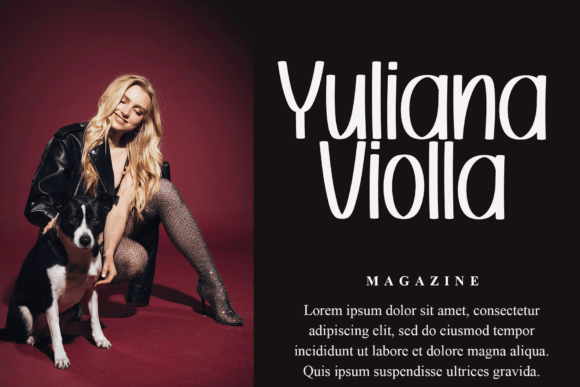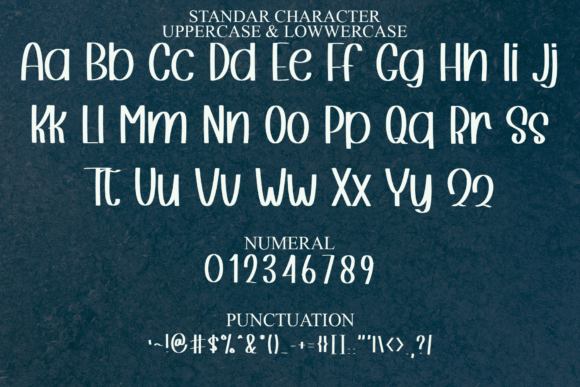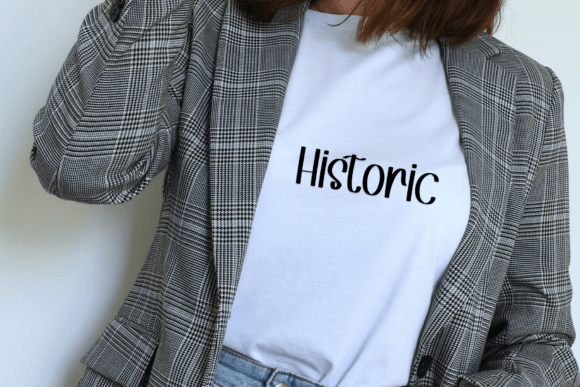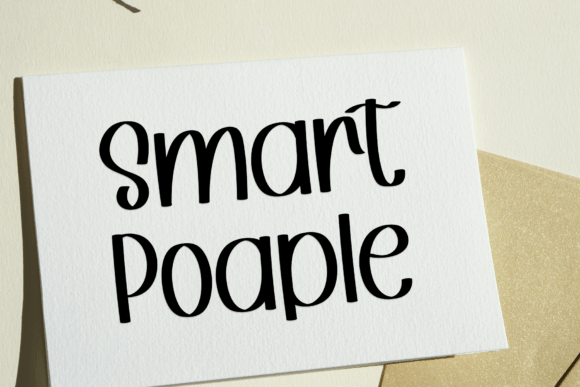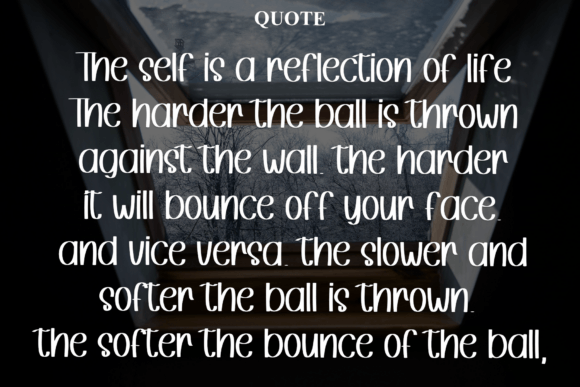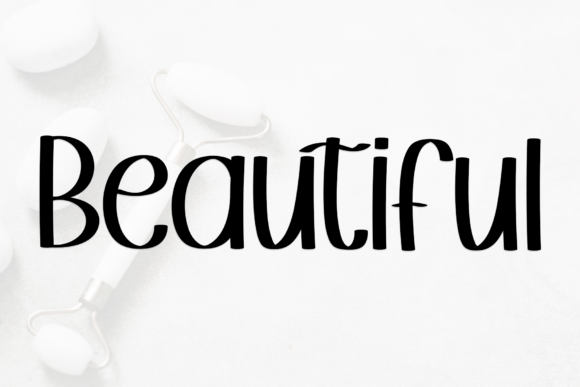
Unleashing Creativity with the Beauty Homestay Font
Have you ever sat in front of a blank canvas, waiting for inspiration to strike? For designers, this moment can be both exhilarating and daunting. But what if you had the perfect tool to spark your creativity and bring your vision to life? Enter the Beauty Homestay Font, a stunning typeface that is sure to elevate your work and leave a lasting impression.
This beautiful font boasts smooth lines and delicate strokes, giving your designs a natural and organic feel. Whether you’re creating banners, YouTube thumbnails, logo designs, or wedding invitation cards, the Beauty Homestay Font is the perfect companion to help you achieve your creative goals. Its versatility and beauty make it an invaluable asset for designers, and we’re excited to share its secrets with you.
Beauty Homestay Font Key Features
- Font Family: Beauty Homestay Font is a unique, elegant font designed specifically for homestay and hospitality businesses.
- Character Set: Supports a wide range of languages, including Latin, Cyrillic, and Greek alphabets, making it suitable for international use.
- Size: The font family includes 6 different font weights, ranging from Light to Bold, providing flexibility for various design needs.
- Unique Characteristics: Features a beautiful, hand-drawn design with subtle flourishes and elegant lines, giving it a touch of sophistication and warmth.
Review of Beauty Homestay Font
Overall, I think Beauty Homestay Font is a decent choice for a clean and minimalist design. ✨ It has a modern aesthetic that could work well for beauty, wellness, or lifestyle brands.
- ✨ Elegant and simple design that is easy to read
- ✨ Open and airy feel that makes text feel less dense
- ✨ Suitable for both digital and print use
- ⚠️ Limited character set and language support
- ⚠️ Not ideal for highly technical or complex content
- ⚠️ May not be suitable for bold or dramatic headlines
While Beauty Homestay Font is a solid choice for certain types of projects, it may not be the best option for everyone. If you’re looking for a clean and modern font for a beauty or wellness brand, it’s worth considering. However, if you need a font that can handle complex content or a wide range of languages, you may want to look elsewhere.
Tips for Getting the Most Out of Beauty Homestay Font
For the best results, use the Beauty Homestay Font in combination with a clean and minimal design. This font is perfect for beauty-related projects, such as makeup tutorials, skincare guides, and fashion blogs.
Use the font in bold or italic styles to add emphasis to your text and create visual interest.
The Beauty Homestay Font is ideal for:
Beauty blogs and websites
Makeup tutorials and product reviews
Skincare guides and routines
Fashion and lifestyle projects